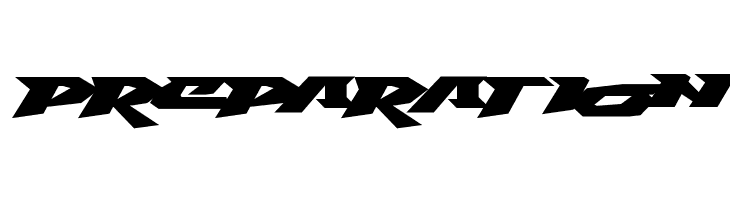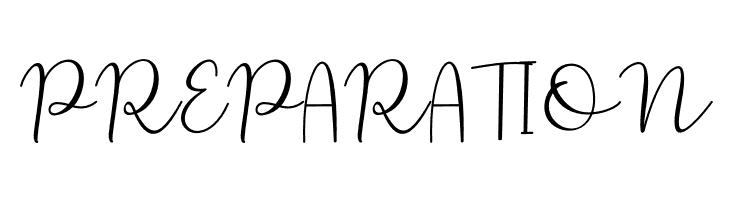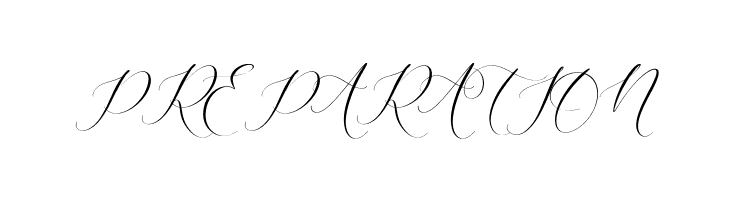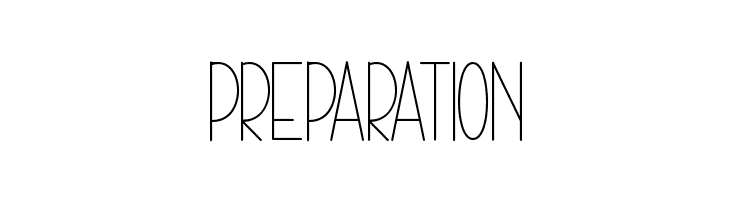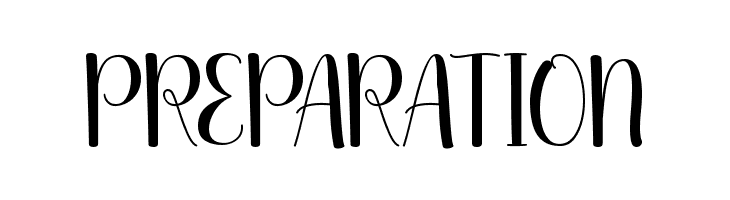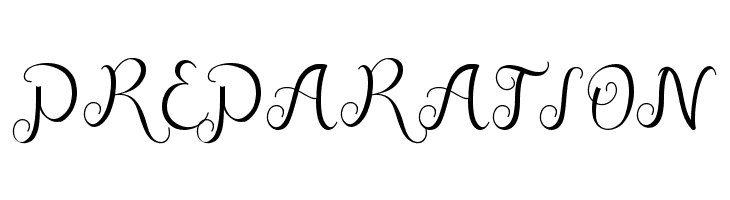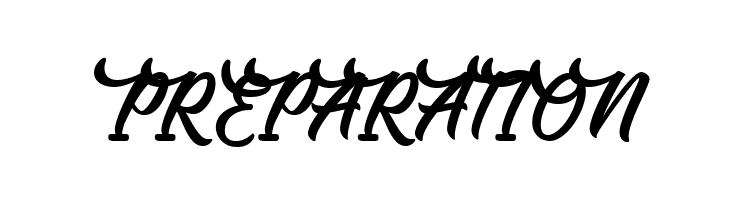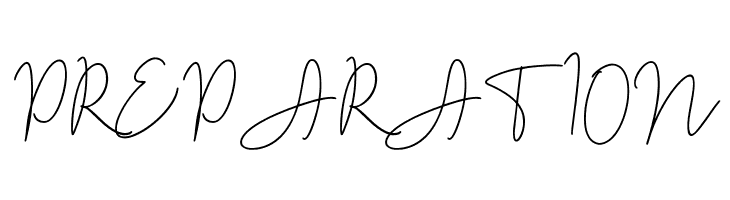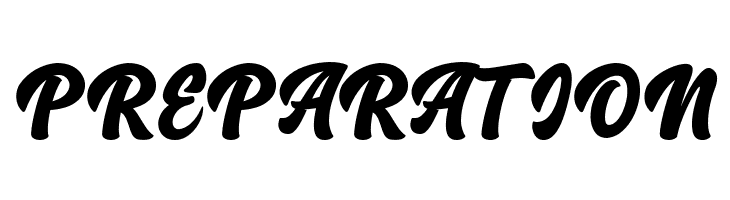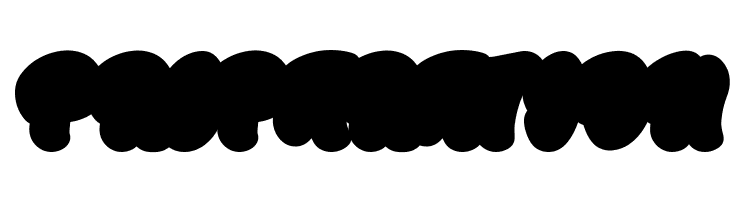
A bold and expressive script font with dynamic flow and smooth curves.
A bold, cursive font with interconnected letters and elegant swashes.
A bold, brush script font with dynamic strokes and artistic flair.
A lively and elegant script font with fluid, cursive strokes and a handwritten appearance.
A whimsical, looping font with continuous strokes and decorative outlines.
A whimsical and decorative font with flowing, interconnected strokes.
A playful, bold font with rounded edges and a hand-drawn feel.
A bold, angular font with an ethnic-inspired, dynamic style.
A whimsical, artistic font with flowing, cursive-like strokes and playful loops.
A lively, handwritten-style font with fluid, expressive strokes.
An elegant and flowing script font with intricate loops and swirls.
A playful and decorative font with whimsical loops and curves.
A flowing, cursive font with elegant, interconnected characters.
A dynamic and elegant script font with flowing, interconnected letters.
A lively, expressive handwritten font with dynamic strokes and artistic flair.
An elegant, flowing script font with smooth, cursive strokes and artistic flair.
A bold, energetic brush script with a textured, hand-painted look.
A bold, brush-style font with a dynamic and informal appearance.
A bold and robust serif font with strong, pronounced strokes.
A flowing, cursive script font with elegant loops and swirls.
A playful and energetic handwritten font with fluid strokes.
A playful, bold font with a hand-drawn, whimsical style.
A bold, italic font with a playful and dynamic style.
A cursive, italic font with smooth, connected strokes and elegant flourishes.
A playful, hollow, and outlined font with a whimsical and informal style.
A playful, hollow, outlined font with consistent stroke width and whimsical design.
A playful, handwritten-style font with curvy and dynamic characters.
A playful, handwritten-style font with consistent stroke thickness and whimsical character design.
A lively, flowing handwritten font with smooth cursive strokes and playful loops.
A modern, geometric font with sleek, continuous lines and rounded shapes.
A modern, italic, bold font with smooth, continuous strokes and a dynamic appearance.
A graceful calligraphic script font with elegant curves and loops.